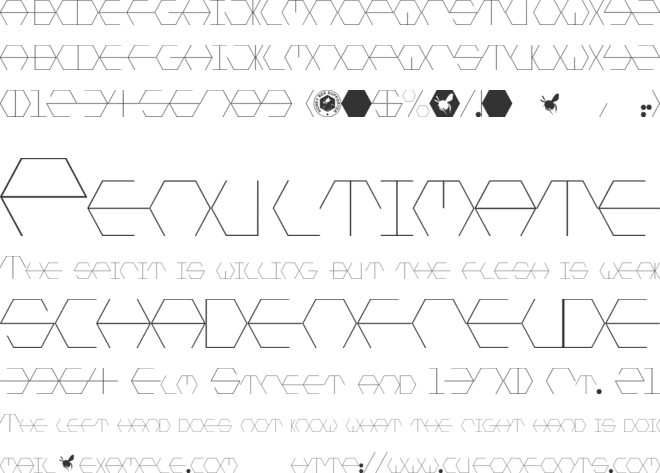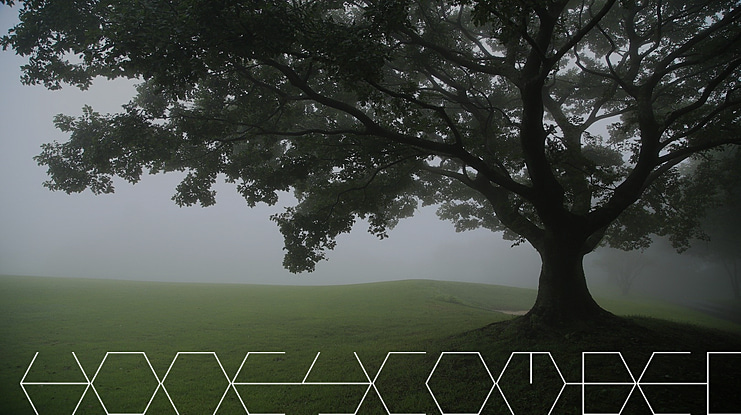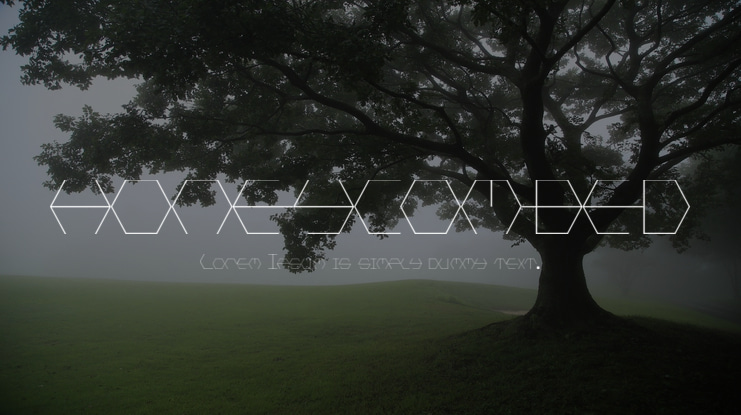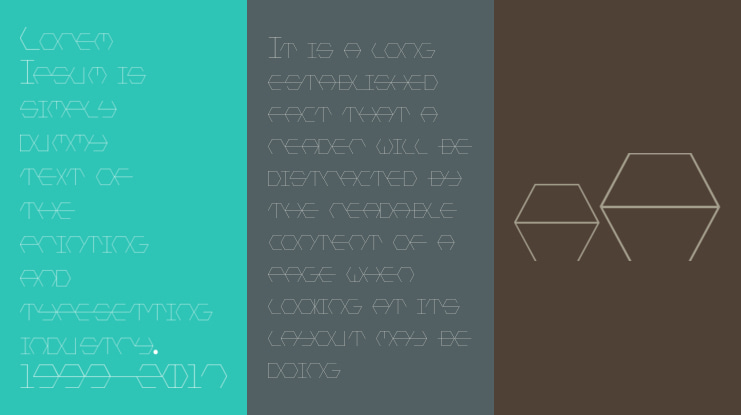
HONEYCOMBED Font
Originally created for the shear enjoyment of playing with the Hexagonal Honeycombed Shape and what I could do with it. I hope you all enjoy using it as much as I did creating it. Several individual letters like the K,I,X don't offer themselves to the shape very well but when joined make the Honeycombed shape, created to raise money to help save the Honeybee! Help us save the bees by signing the petition @ http://sos-bees.org